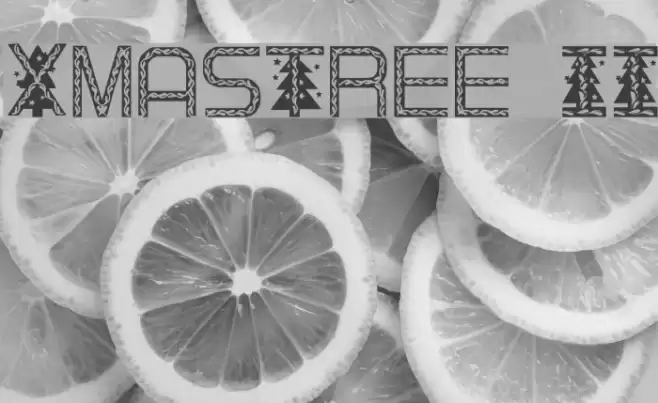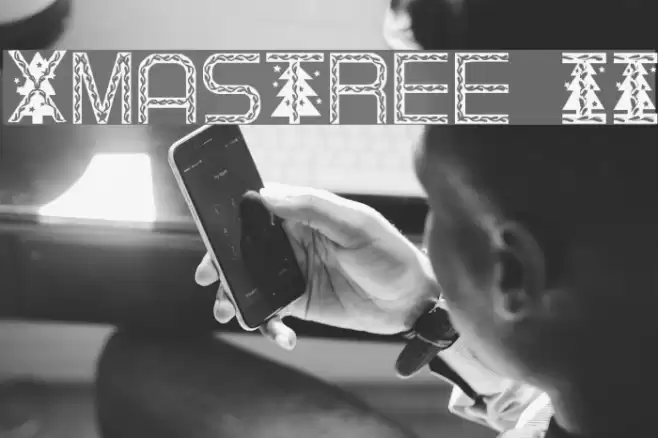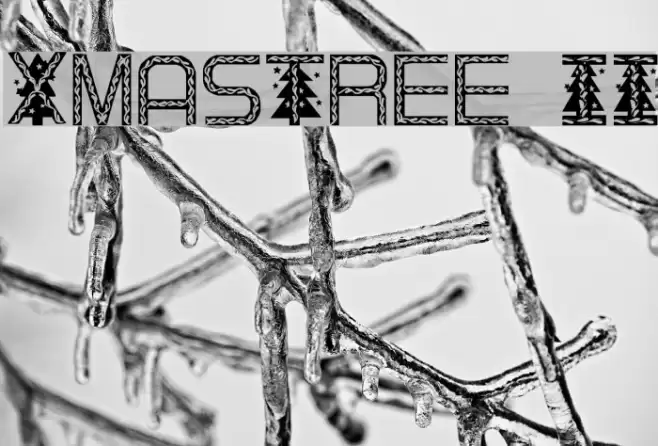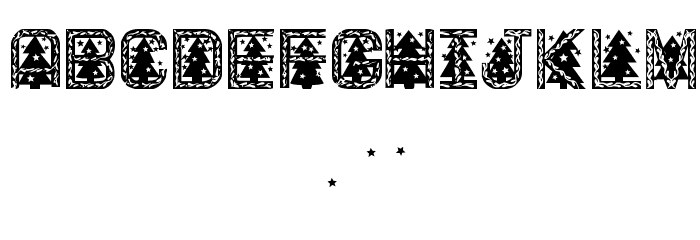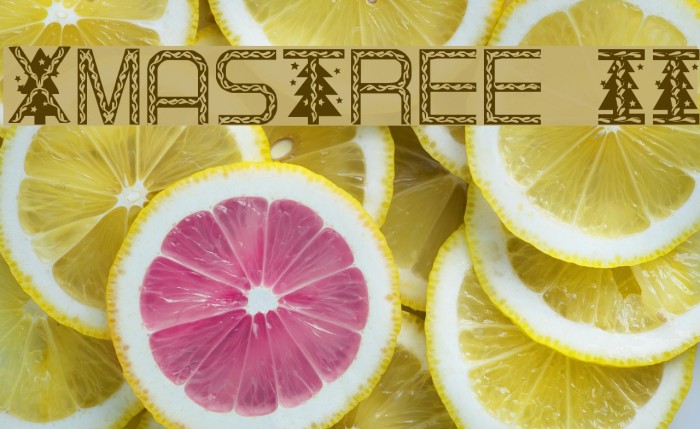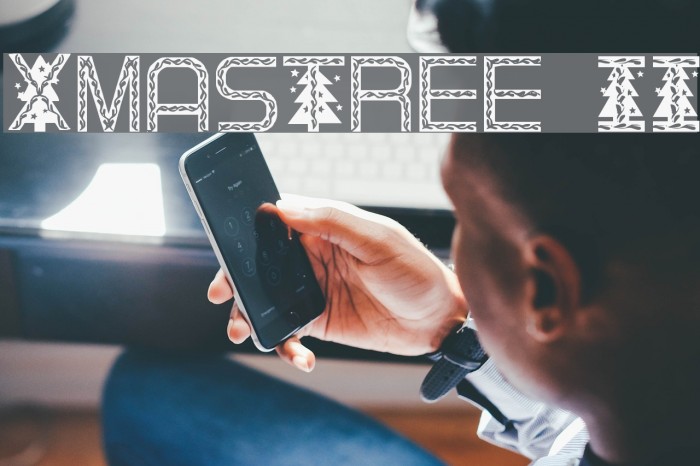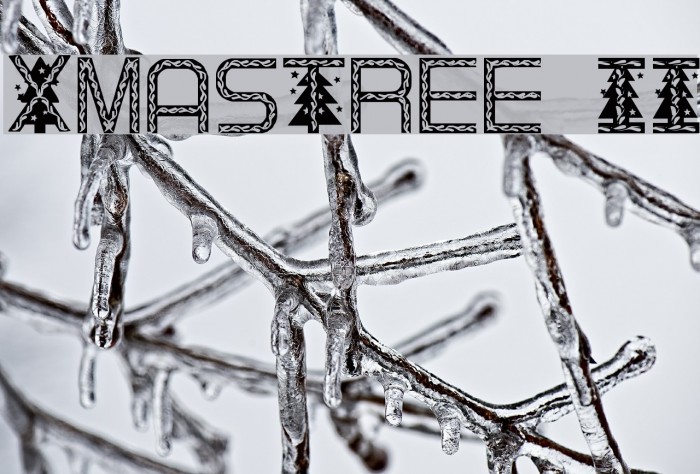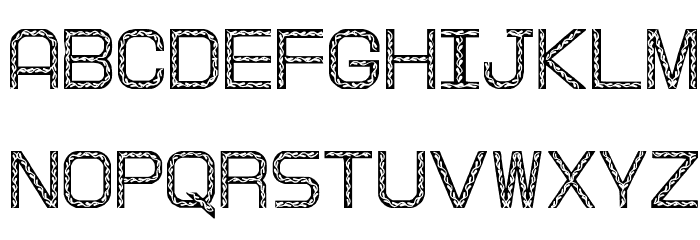
XmasTree II Font
XmasTree II Description
This decorative font features a unique holiday-themed design, incorporating Christmas tree motifs and star patterns within each letter. The uppercase letters are bold and eye-catching, making them ideal for festive occasions. The intricate detailing within each character adds a playful and whimsical touch, perfect for capturing the spirit of the holiday season. The font's design is consistent across all characters, maintaining a cohesive look that enhances its decorative appeal. This font is particularly suited for projects that aim to evoke a sense of joy and celebration.
A festive, decorative font with Christmas tree and star motifs from Uncategorized fonts.
- Proposed Projects: Ideal for holiday cards, festive banners, Christmas-themed posters, and seasonal advertisements.